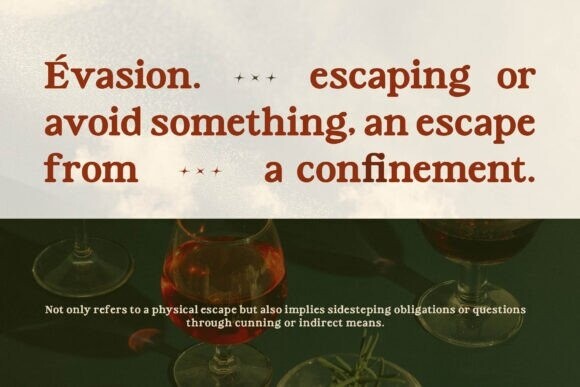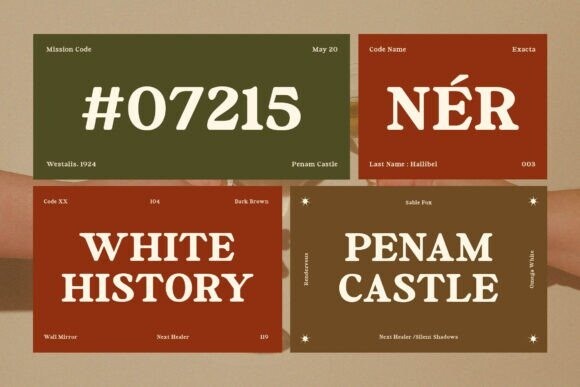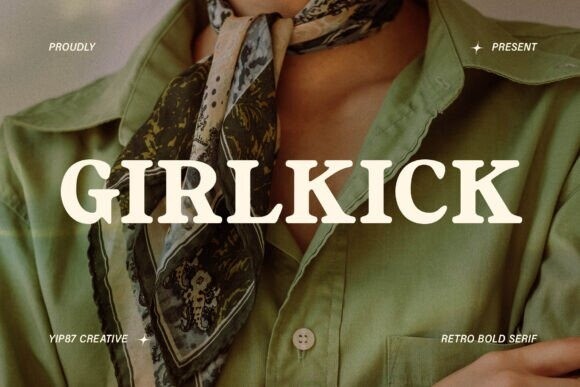
Girlkick Font
Designer: yip87
Girlkick Font is a stylish and classic retro bold expanded serif font. Its sleek design offers a touch of luxury and elegance, making it perfect for projects that require a graceful and high-end aesthetic, such as branding, luxury packaging, logo design, fashion magazines, editorial design, and any project that requires a touch of luxury and classic. Elevate your branding design projects with Girlkic.